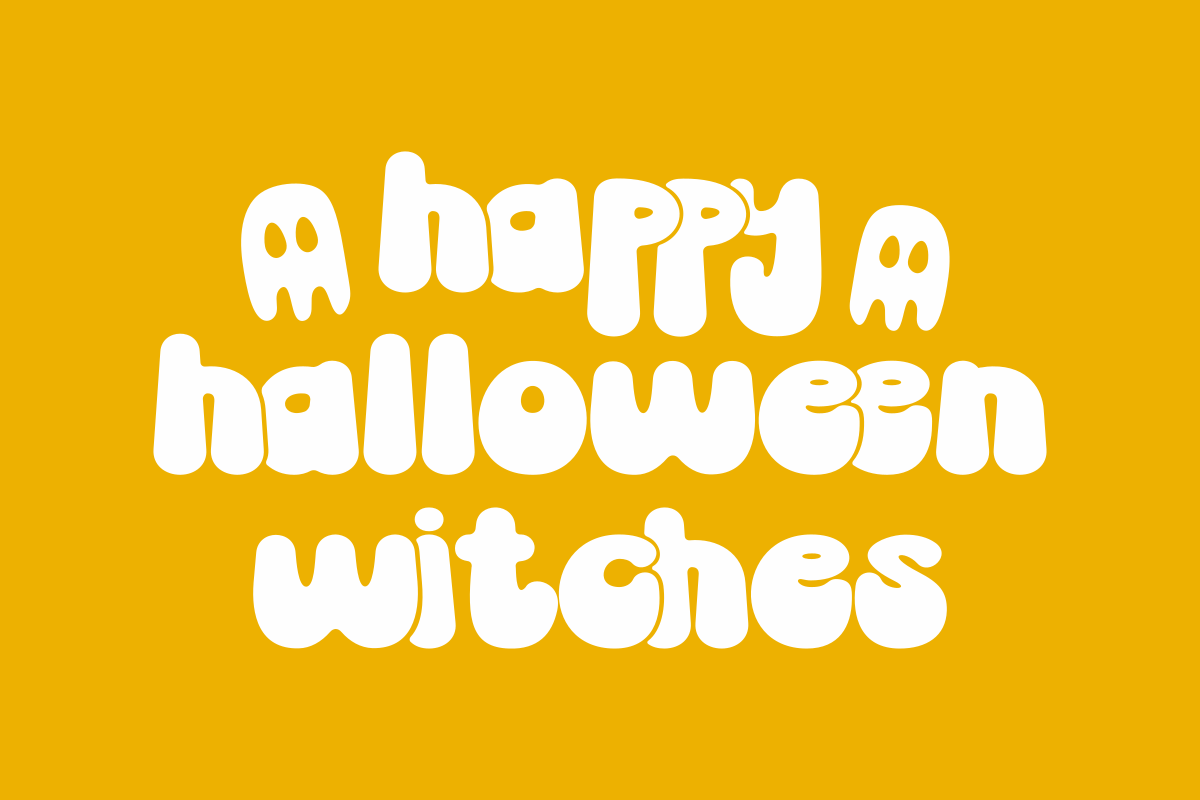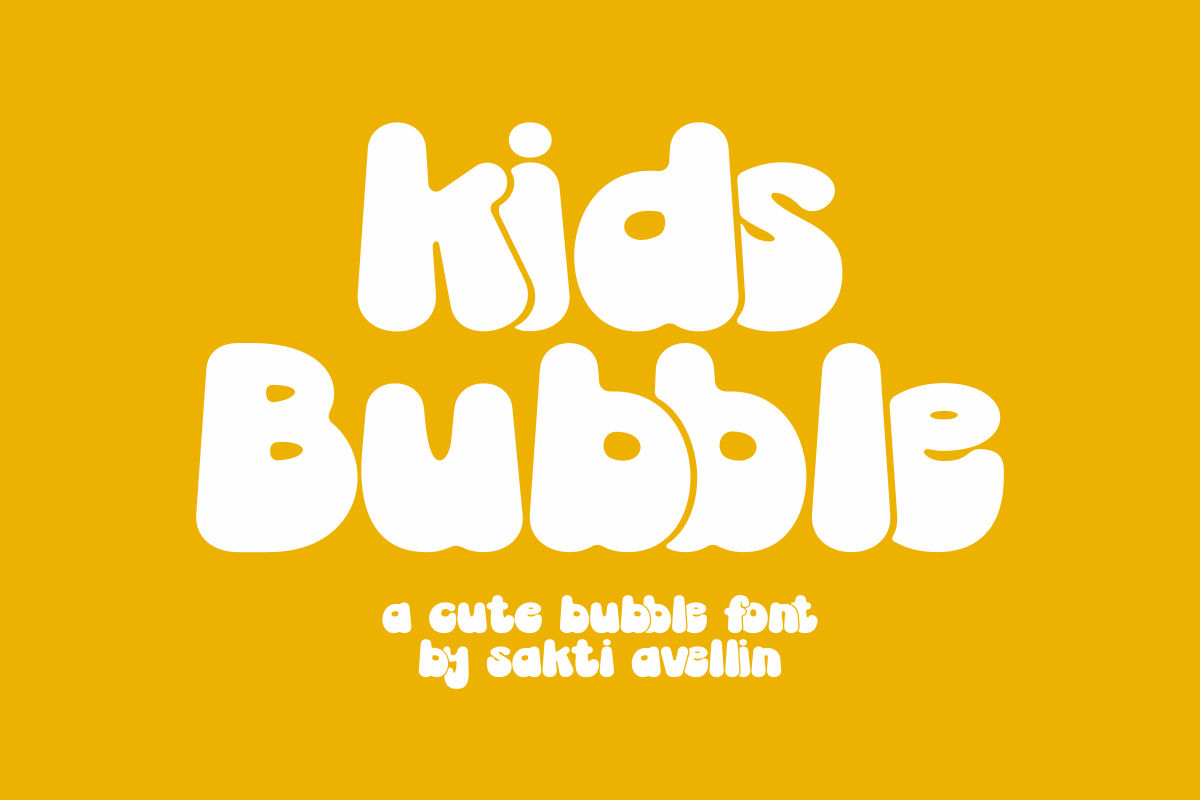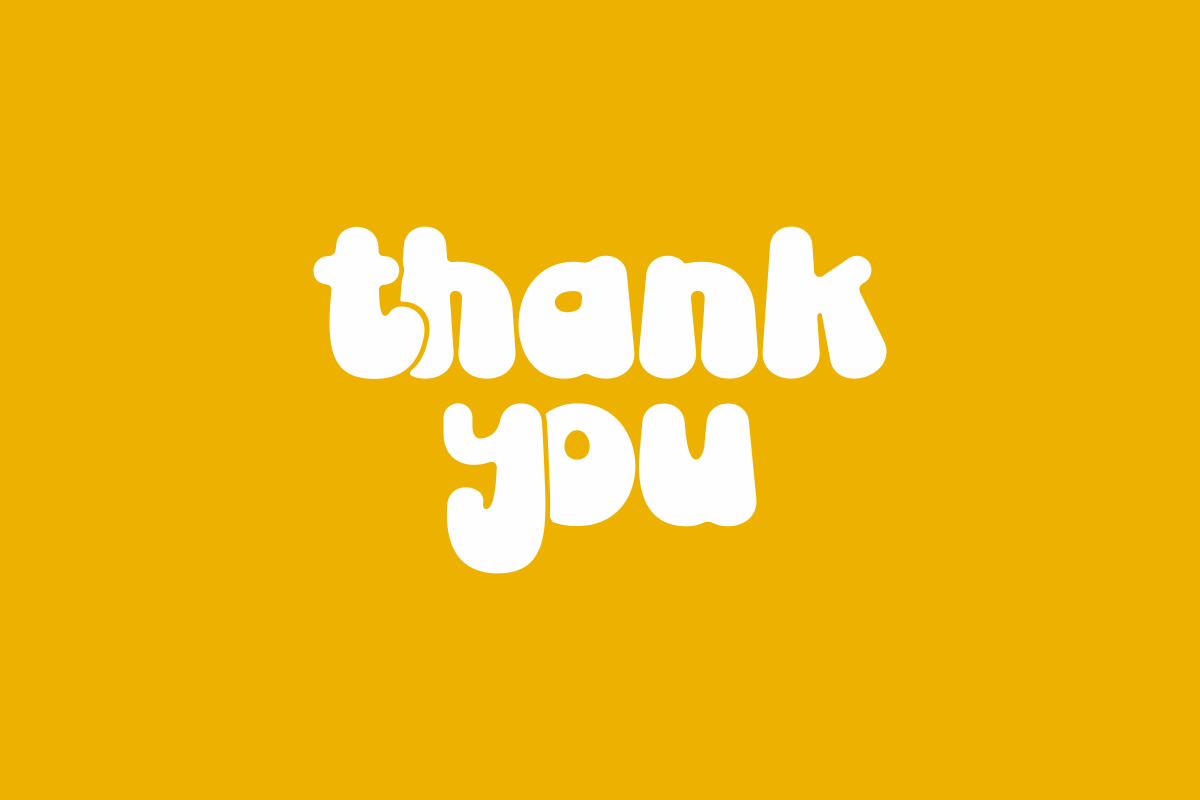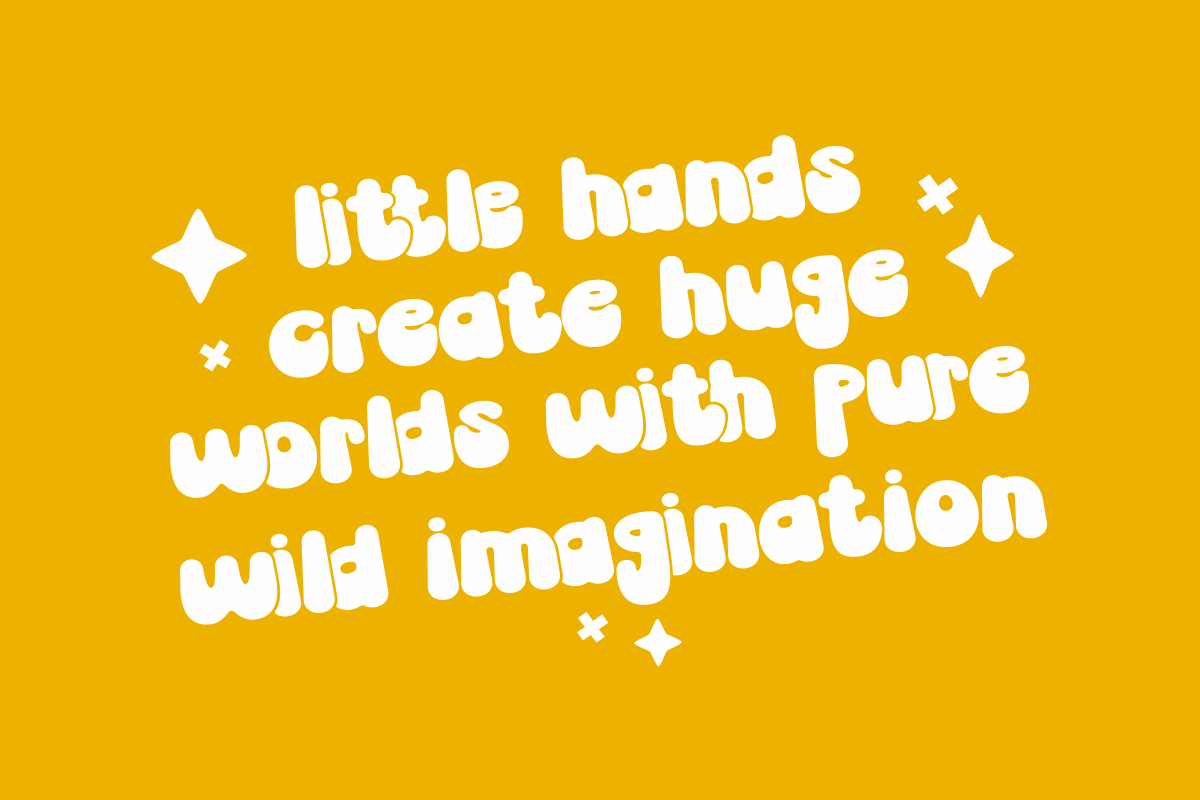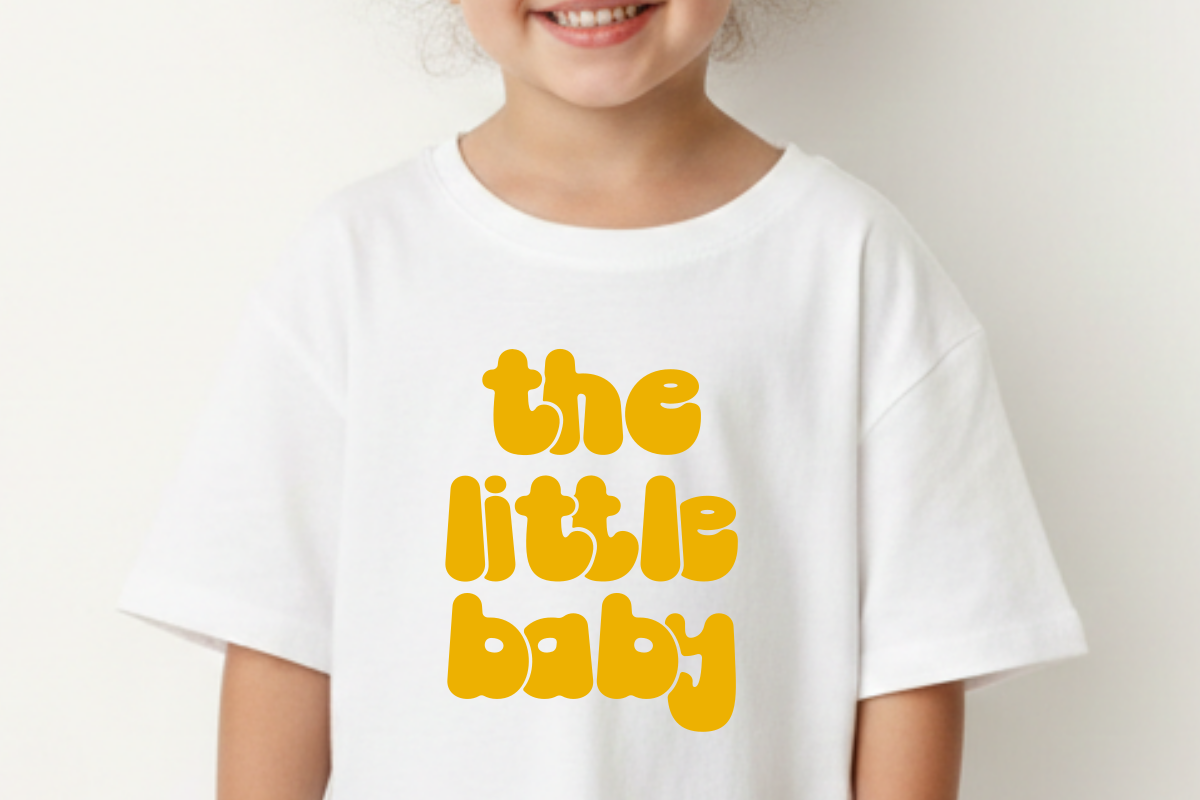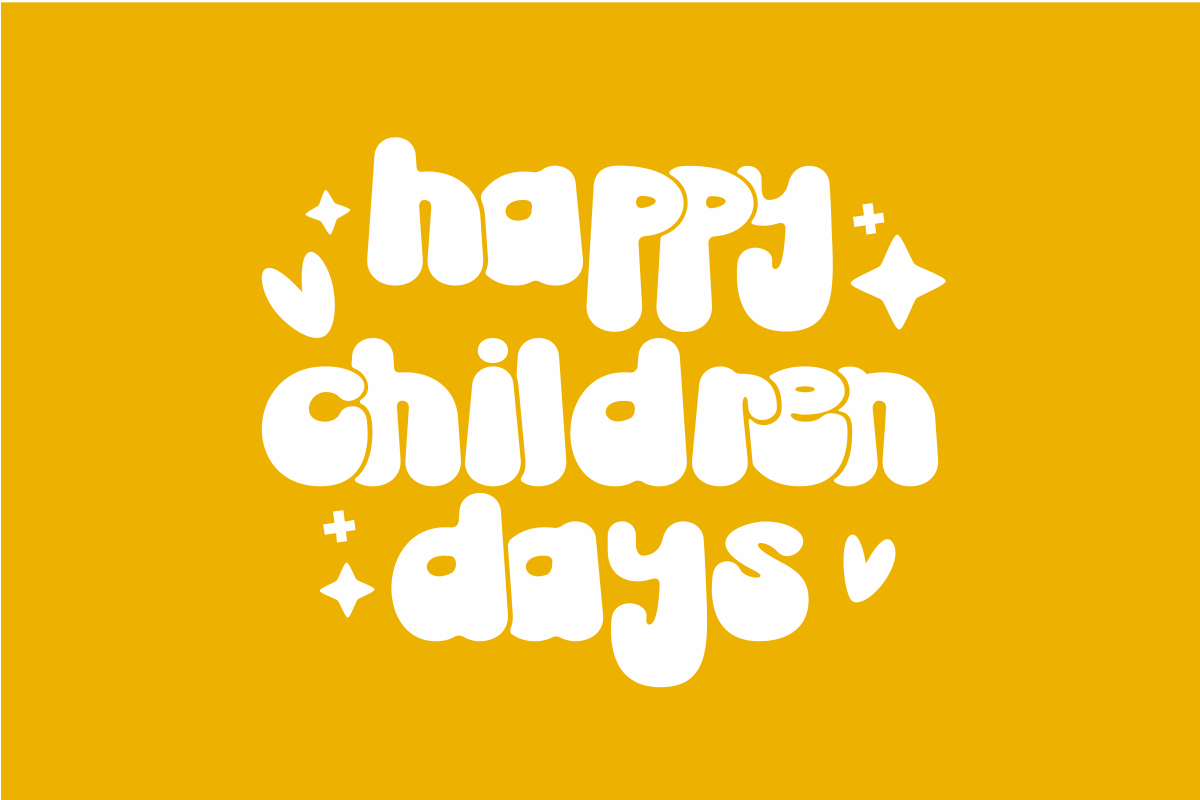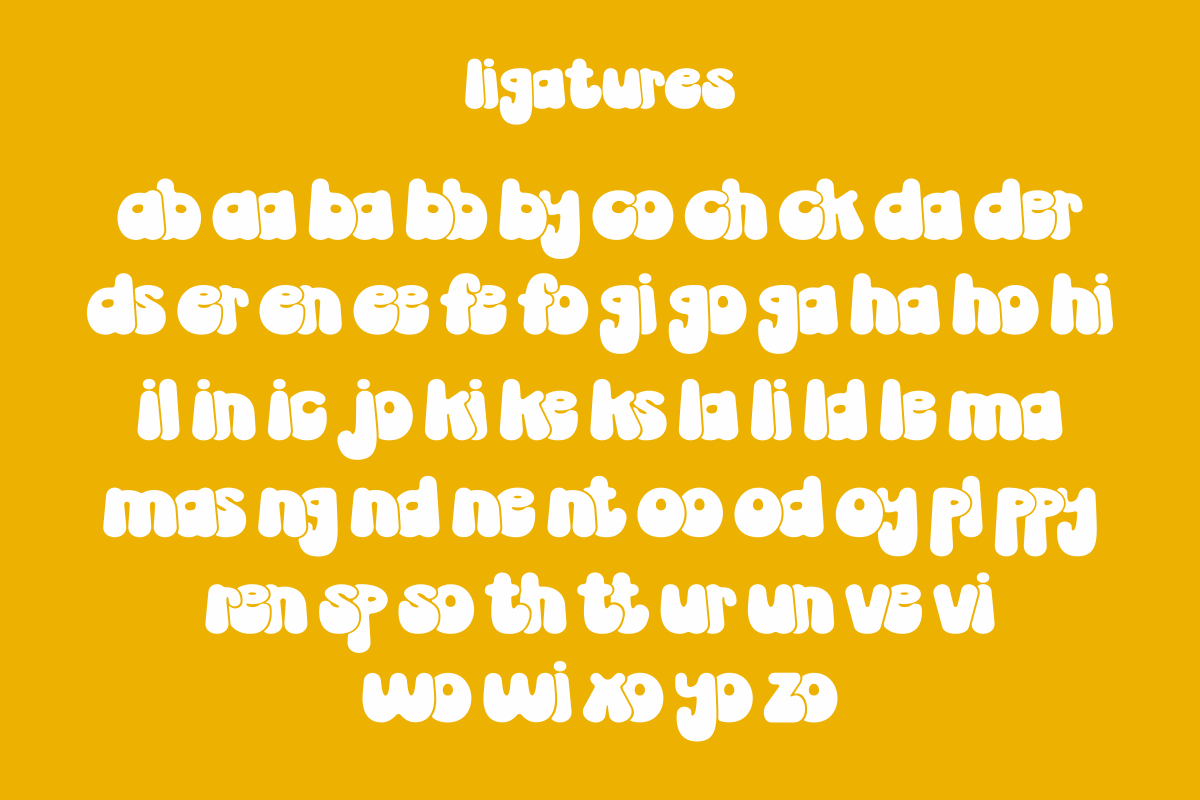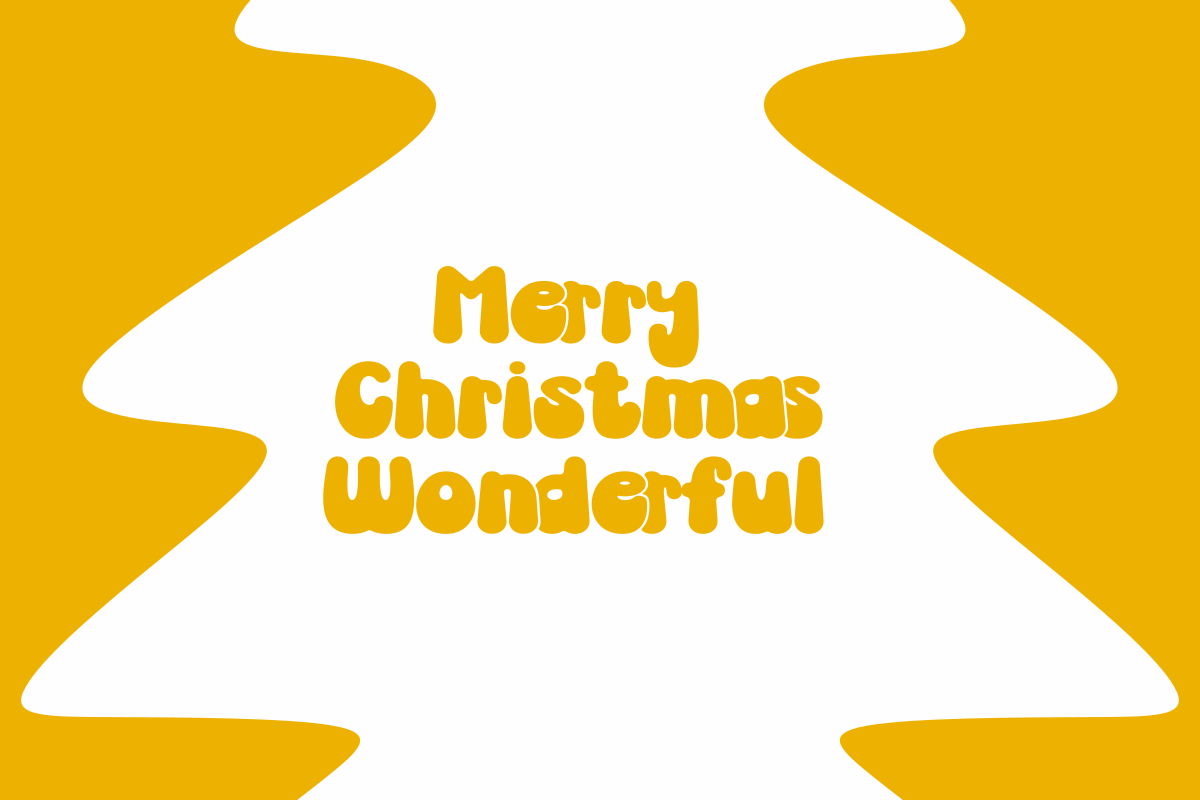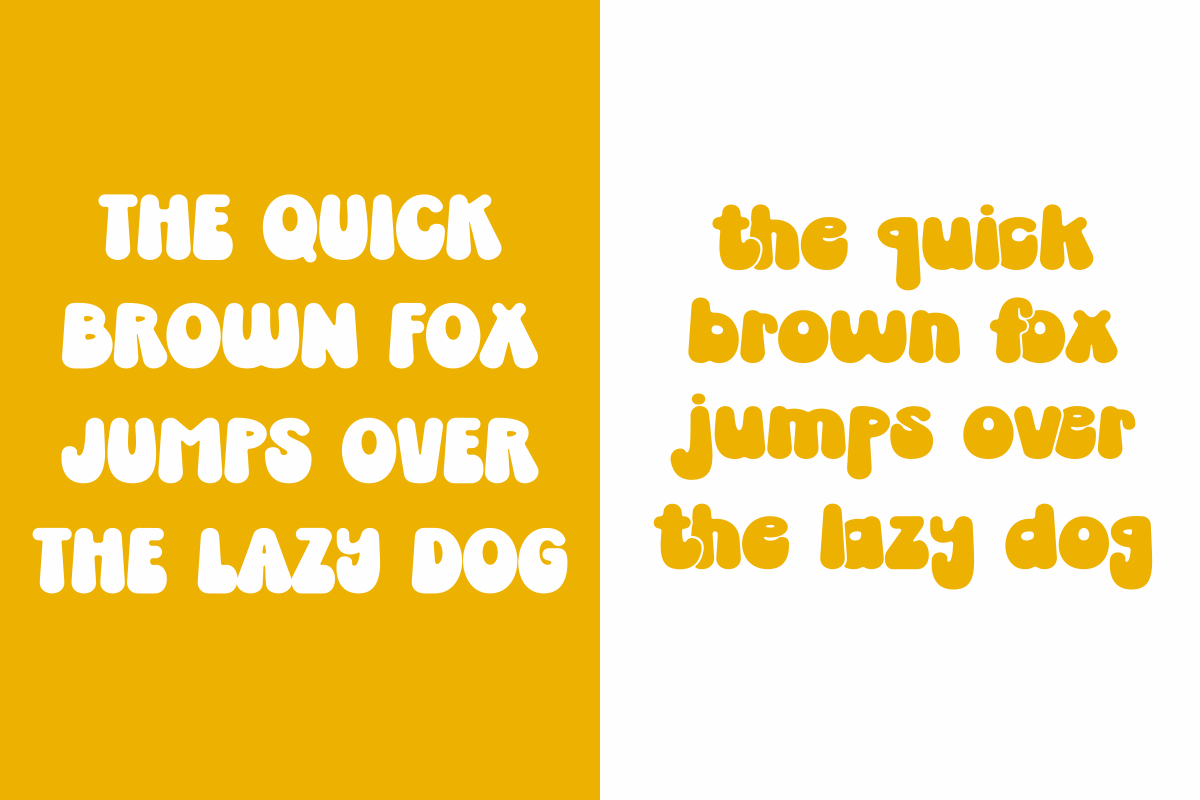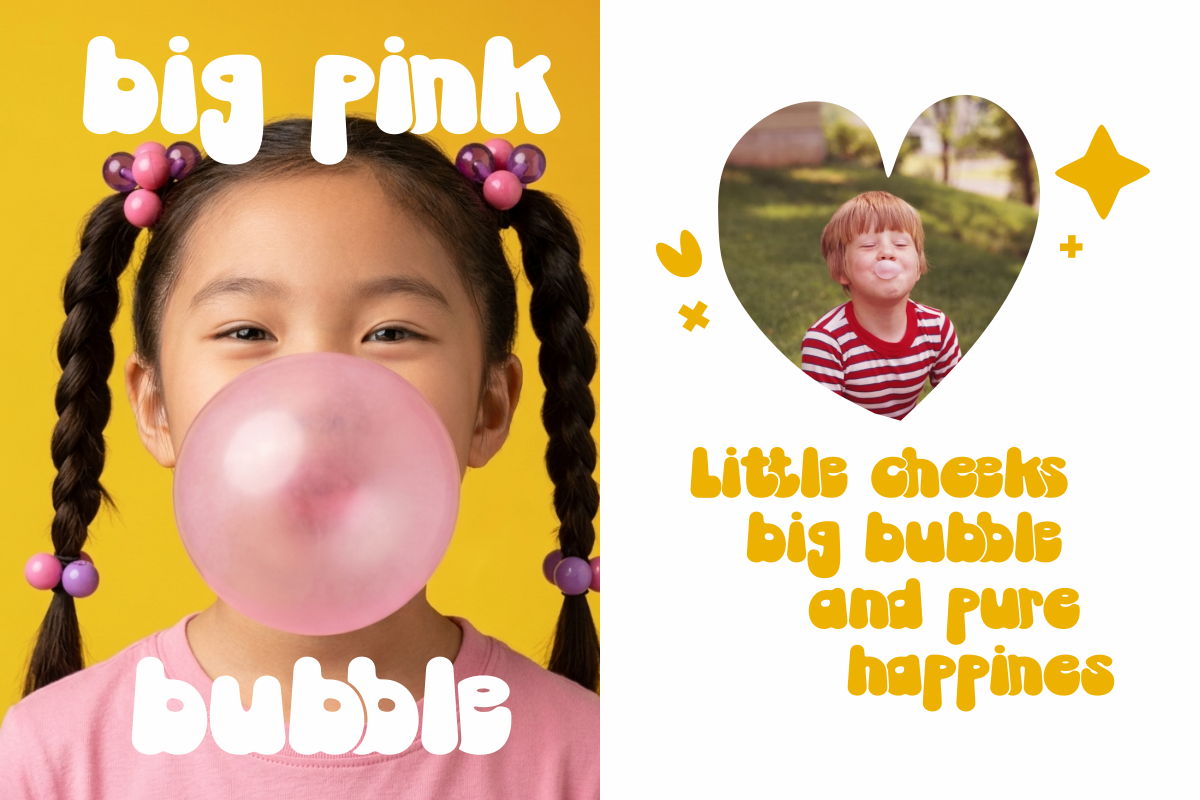
Kids Bubble - Display Font
Kids Bubble is a delightful and cheerful cute bubble font designed to bring a playful, joyful energy to your creative projects. This charming display typeface features thick, rounded, and bouncy letterforms that effortlessly capture a fun-loving spirit. Perfect for children's branding, colorful stickers, nursery decor, birthday invitations, toy packaging, and cheerful social media graphics, this font ensures your headlines stand out with a unique, handcrafted personality. Whether you are designing for school projects, whimsical apparel, or playful stationery, Kids Bubble adds a lovely and imaginative touch to every design.